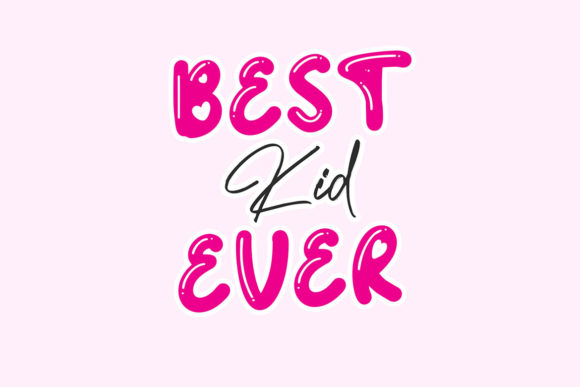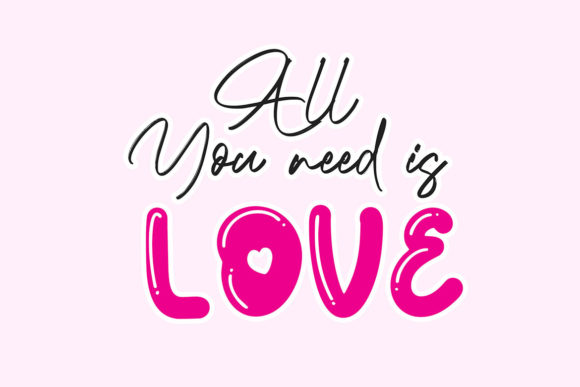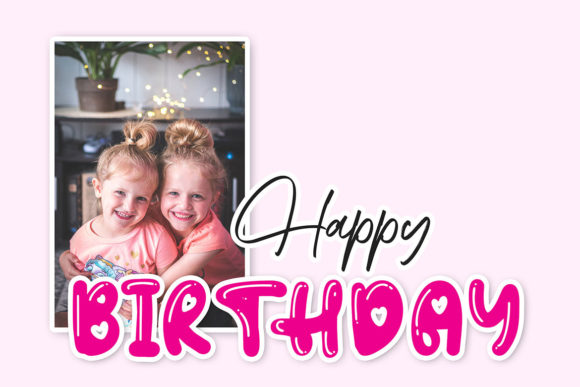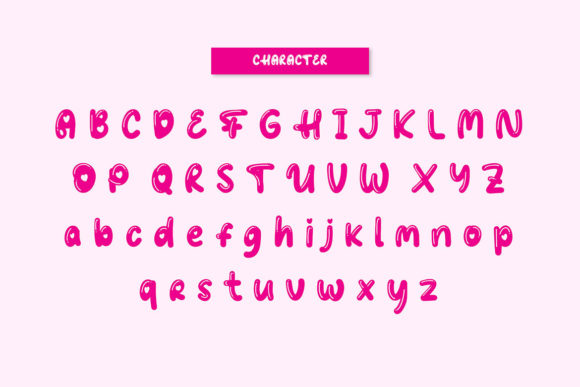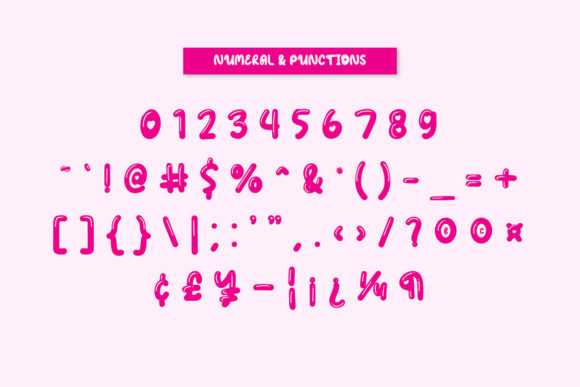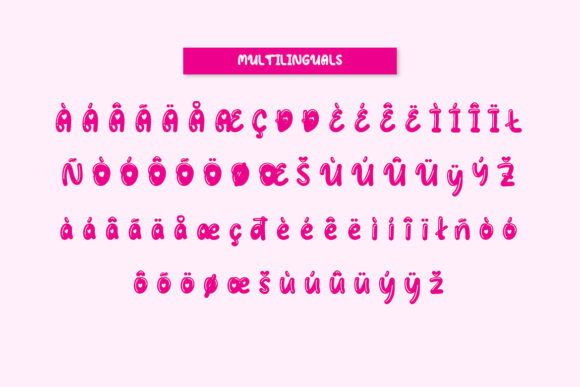
Gingies Bubble Font: Add a Playful Touch to Your Designs
Are you looking for a font that can add a dash of fun and playfulness to your designs? Look no further than Gingies Bubble Font! This adorable, bold, and playful display font is perfect for creating eye-catching designs that are sure to delight kids and adults alike. In this article, we’ll take a closer look at Gingies Bubble Font, its features, and how you can use it to brighten up your designs.
What is Gingies Bubble Font?
Gingies Bubble Font is a unique and charming font that is designed to bring a smile to your face. Its childlike playfulness makes it perfect for use in kids’ projects, school materials, and any design that requires a fun and carefree touch. The font features bold, rounded letters that are reminiscent of childhood bubbles, making it an ideal choice for designs that need to be playful and engaging.
Key Features of Gingies Bubble Font
- Cute and Playful: Gingies Bubble Font is designed to be fun and playful, making it perfect for kids’ projects and school materials.
- Bold and Eye-catching: The font features bold, rounded letters that are sure to grab attention.
- Easy to Read: Despite its playful nature, Gingies Bubble Font is easy to read, making it perfect for use in titles, headings, and other display text.
- Versatile: Gingies Bubble Font can be used in a variety of designs, from kids’ party invitations to school posters and more.
How to Use Gingies Bubble Font
Gingies Bubble Font is incredibly easy to use and can be incorporated into your designs in a variety of ways. Here are a few ideas to get you started:
- Kids’ Party Invitations: Use Gingies Bubble Font to create fun and playful invitations for kids’ parties.
- School Projects: Add a touch of fun and playfulness to school projects with Gingies Bubble Font.
- Posters and Flyers: Use Gingies Bubble Font to create eye-catching posters and flyers for kids’ events and activities.
- Digital Graphics: Incorporate Gingies Bubble Font into your digital graphics, such as social media posts and blog headers.
Tips for Using Gingies Bubble Font
Here are a few tips for using Gingies Bubble Font effectively in your designs:
- Use it Sparingly: While Gingies Bubble Font is playful and fun, it can be overwhelming if used too much. Use it sparingly to add a touch of whimsy to your designs.
- Pair it with Other Fonts: Gingies Bubble Font pairs well with other fonts, such as sans-serif fonts. Experiment with different font combinations to find the perfect look for your design.
- Experiment with Colors: Gingies Bubble Font looks great in a variety of colors. Experiment with different colors to find the perfect look for your design.
| Font Name | Gingies Bubble Font |
| Author | rometheme |
Gingies Bubble Font is a fun and playful display font that is perfect for adding a touch of whimsy to your designs. Its bold, rounded letters and childlike playfulness make it ideal for use in kids’ projects, school materials, and any design that requires a carefree touch. With its ease of use and versatility, Gingies Bubble Font is sure to become a favorite among designers and crafters. So why not give it a try and see how it can add a playful touch to your designs?
- What is Gingies Bubble Font? Gingies Bubble Font is a cute, bold, and playful display font designed for use in kids’ projects, school materials, and other designs that require a fun and carefree touch.
- Is Gingies Bubble Font easy to read? Yes, despite its playful nature, Gingies Bubble Font is easy to read, making it perfect for use in titles, headings, and other display text.